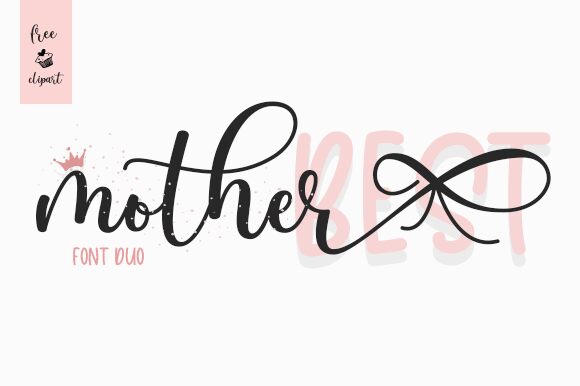
Mother
Mother, a mesmerizing calligraphy font designed by Fillo Graphic, sets the tone for your projects with its semi-light weight. Its graceful curves and sweeping strokes evoke elegance and sophistication, making it perfect for wedding invitations, event posters, or branding materials. This versatile typeface can also be used for book covers or editorial design, adding a touch of artistry to any project. With Mother as your font choice, you'll capture attention and convey a sense of refinement that's sure to impress.